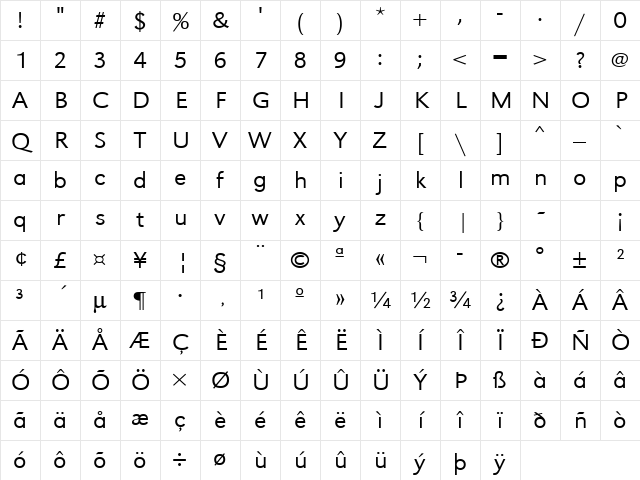
URWGroteskTLigExtWid Regular
Design Context for URWGroteskTLigExtWid
URWGroteskTLigExtWid takes a clean, functional approach - its unadorned letterforms prioritise legibility and work reliably across screen and print environments.
Font Pairing: Works well alongside a characterful serif or display font that can carry the expressive load while URWGroteskTLigExtWid handles the functional copy.
Pro Tip: Use URWGroteskTLigExtWid for UI labels, navigation, and short-form body copy where clean legibility is the priority.